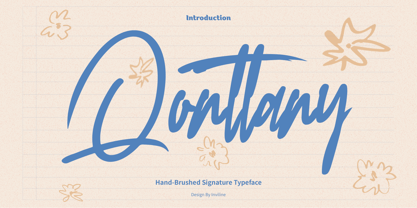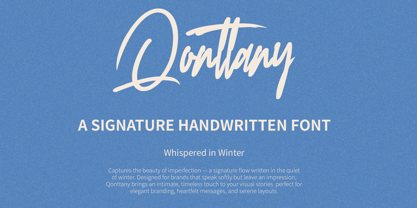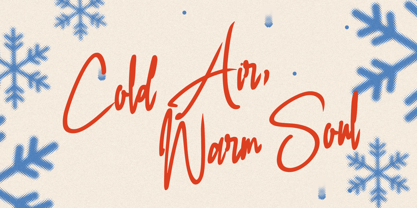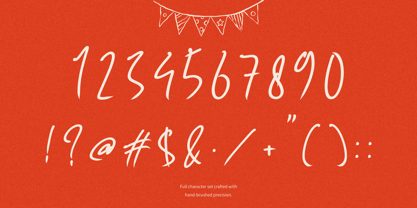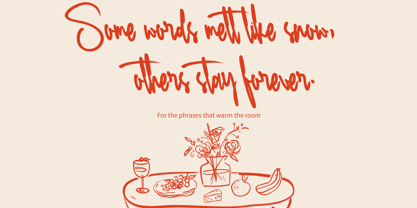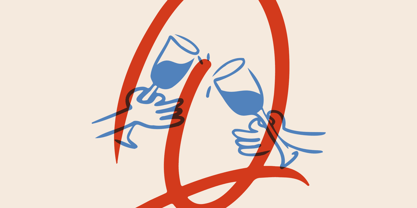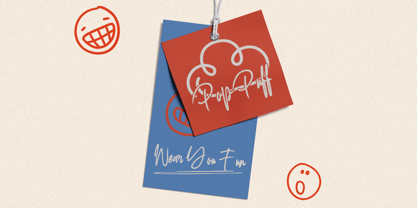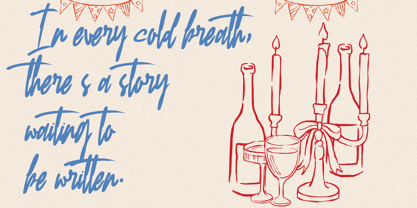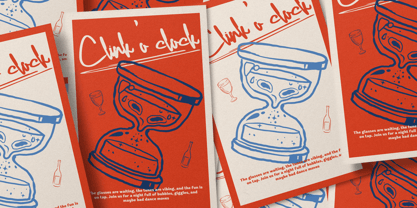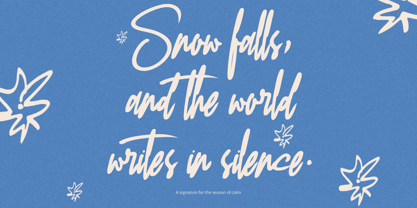
Qonttany
by Inviline
The Qonttany Font Family was designed by Virgiawan Listanto and published by Inviline. Qonttany contains 1 styles. More about this family
Qonttany is a hand-brushed signature font that captures the intimacy of winter through expressive strokes and quiet charm. This font includes uppercase, lowercase, numerals, punctuation, and full character support – all crafted with an authentic, hand-written feel. Ideal for branding, social media, packaging, heartfelt letters, wedding invites, or winter-themed campaigns, Qonttany adds an elegant softness to any layout. Whether you're telling a story, designing a logo, or building a cozy aesthetic, Qonttany brings warmth and a timeless flow to your creative projects.
Designers: Virgiawan Listanto
Foundry: Inviline